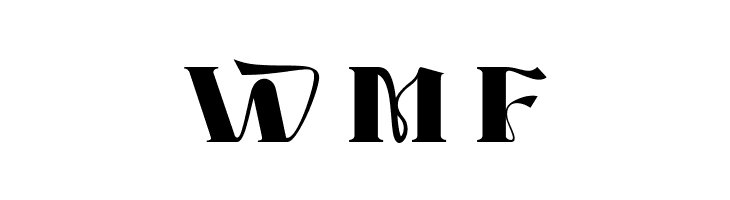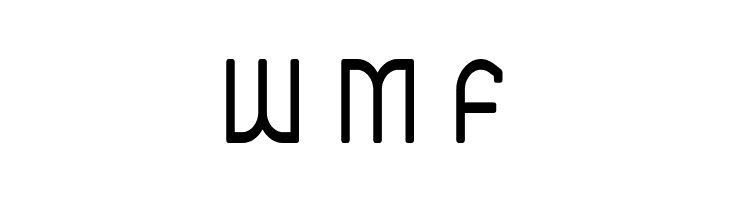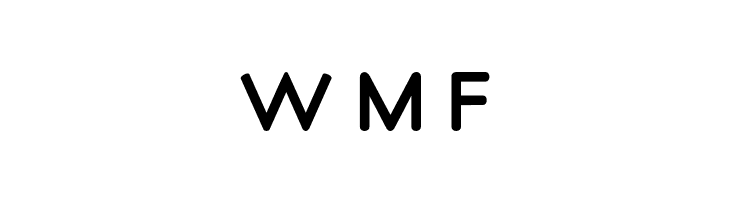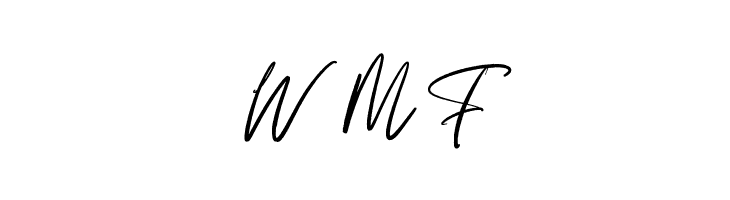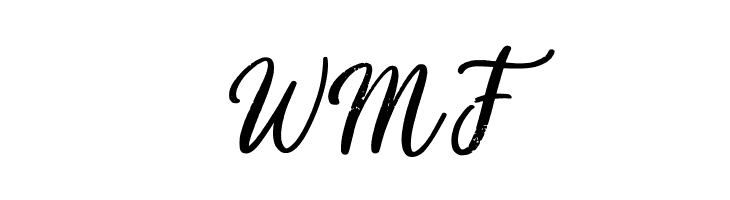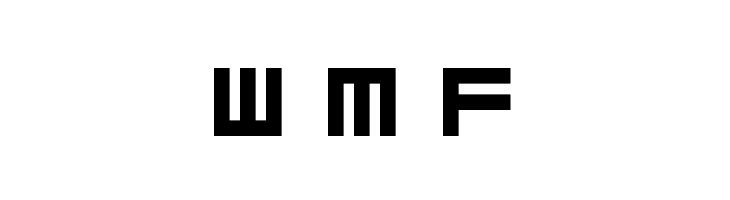
A clean, geometric font with a modern and minimalistic style.
A bold, geometric outline font with a futuristic and technical style.
A modern, outline-style font with rounded, hollow characters.
A bold, decorative font with modern geometric elements and elegant flourishes.
A playful, handwritten font with bold, rounded characters.
A bold, geometric font with an industrial and mechanical style.
A graceful script font with flowing, interconnected cursive letters.
A modern, geometric font with clean lines and a futuristic aesthetic.
A lively and expressive script font with interconnected letters and artistic flair.
A bold, italicized font with high contrast and dynamic slanted letterforms.
A modern, rounded, and condensed font with a clean and minimalist style.
A graceful and elegant script font with flowing, cursive strokes.
A bold, rounded sans-serif font with a modern and friendly appearance.
A modern, elegant handwritten font with fluid, cursive strokes.
A condensed, elongated font with thin strokes and minimal spacing.
A lively, cursive font with a natural, handwritten feel and elegant loops.
A modern, geometric sans-serif font with clean lines and uniform stroke width.
A bold, italicized font with a dynamic and assertive style.
A dynamic and expressive script font with fluid, cursive letterforms.